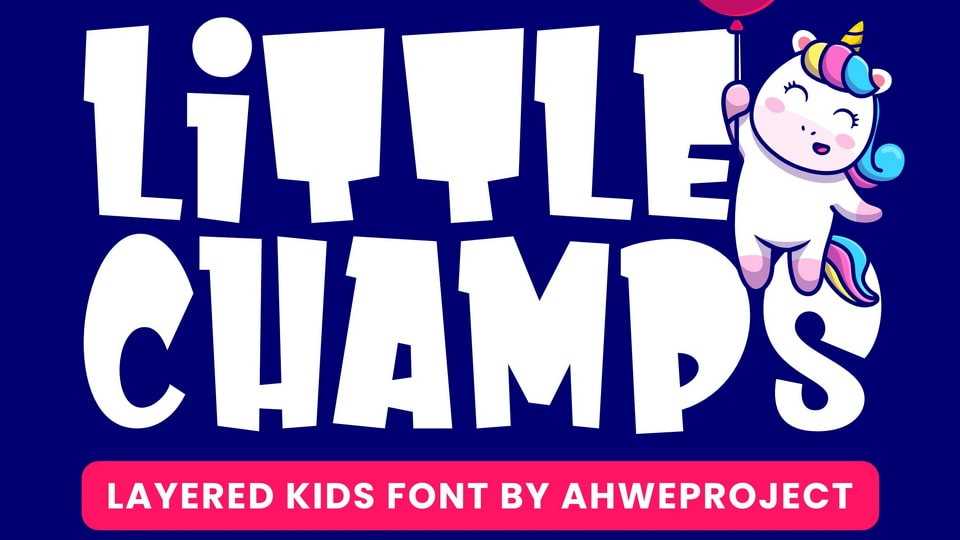
Download Little Champs font, a playful and bold layered kids’ typeface perfect for adding a cheerful and energetic vibe to any design. Its quirky letterforms and fun style make it ideal for children’s books.